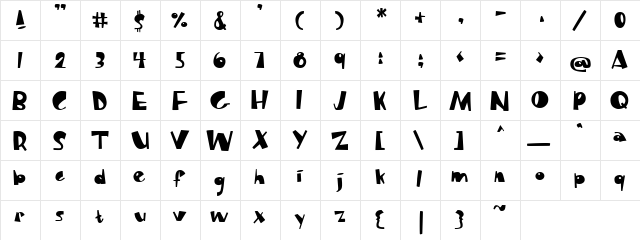
PC Kick Plate Regular
Design Context for PC Kick Plate Typeface
PC Kick Plate is a composed and adaptable typeface that performs quietly and consistently across a wide range of design contexts.